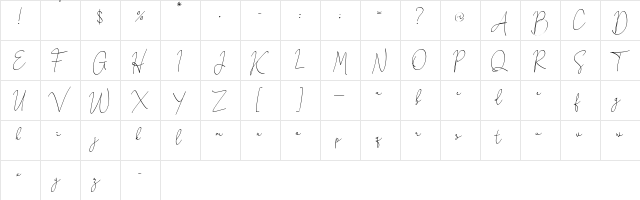
Honeymoon Avenue Script Regular
Design Context for Honeymoon Avenue Script Typeface
Honeymoon Avenue Script flows with the natural rhythm of handwritten lettering, making it ideal for designs that call for warmth and personal expression.
Font Pairing: Combine Honeymoon Avenue Script with a simple geometric sans for maximum contrast — the tension between flowing curves and clean structure is a classic typographic pairing.
Pro Tip: Use Honeymoon Avenue Script for short runs of text — names, titles, or taglines. Extended body copy in script faces tires the eye quickly.